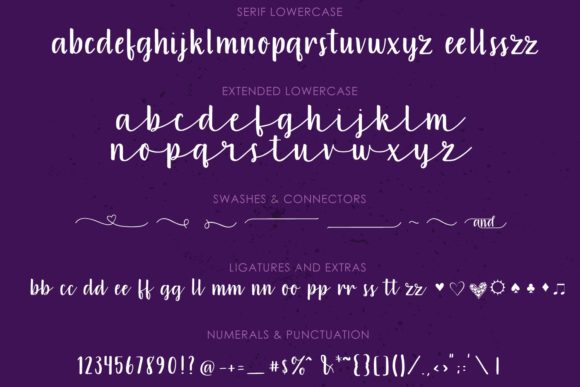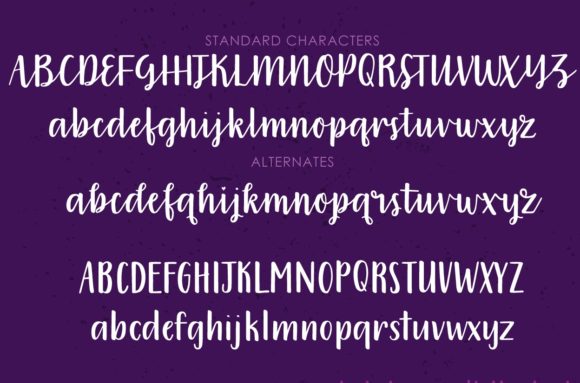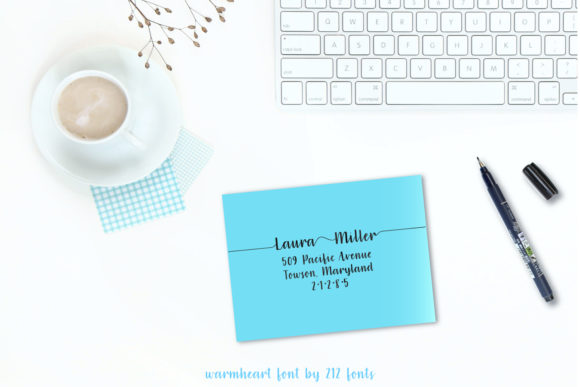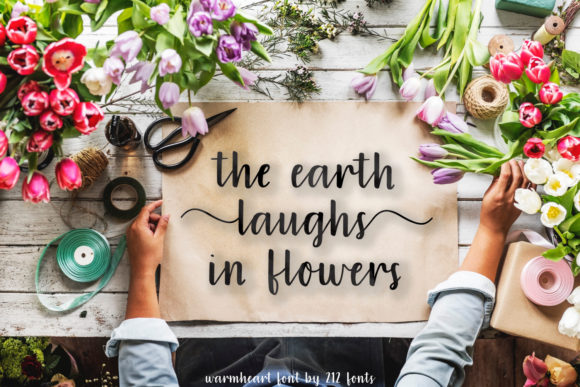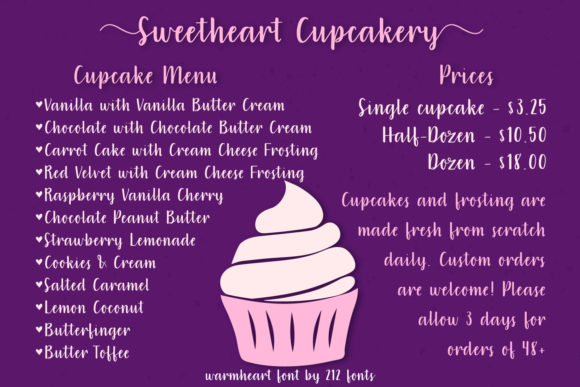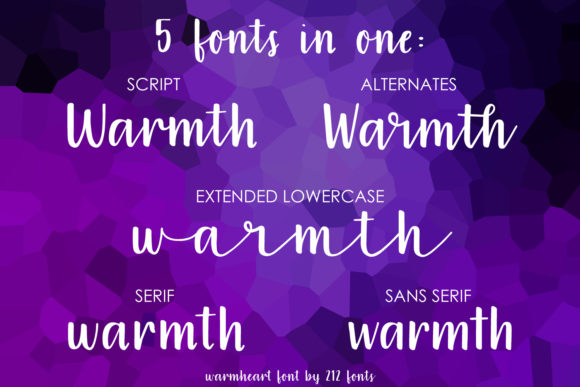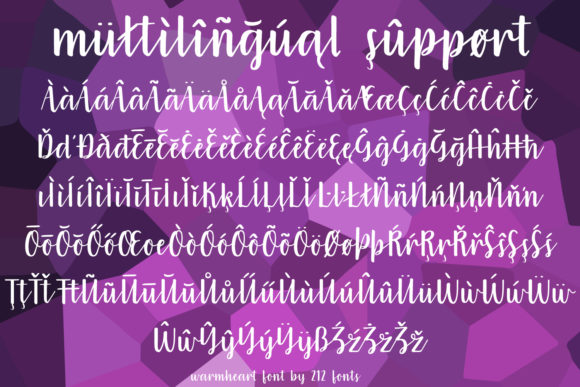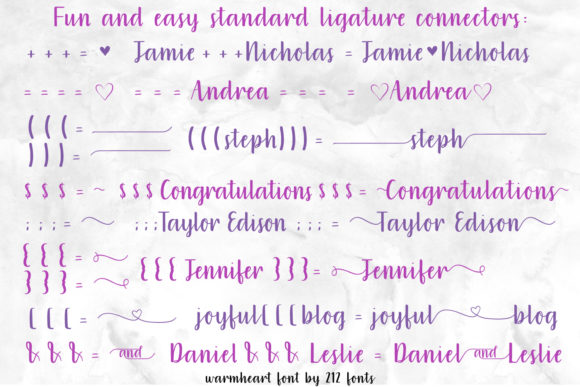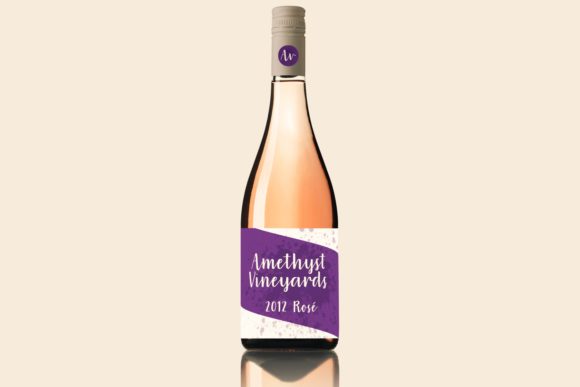
Warmheart Font
About Warmheart Font
Warmheart is a delicate, handwritten font that includes 5 styles and swashes that can be applied to the beginning and ends of all letters. This font includes a script, serif, sans serif, extended lowercase and standard ligatures as well as stylistic alternates, swashes, hearts and connectors.